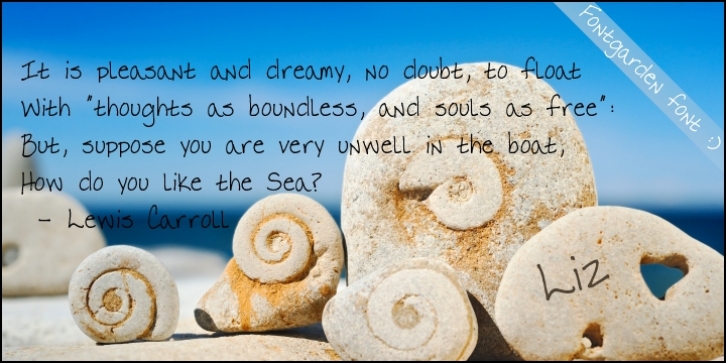
FG Liz was published by YOFF. FG Liz contains 1 style.
FG Liz is an unusual handwriting. It looks a bit naive with it cap N's and the big exclamation mark.
Perfect for poems and dreamy things!